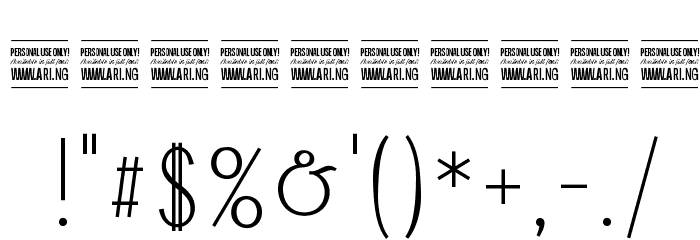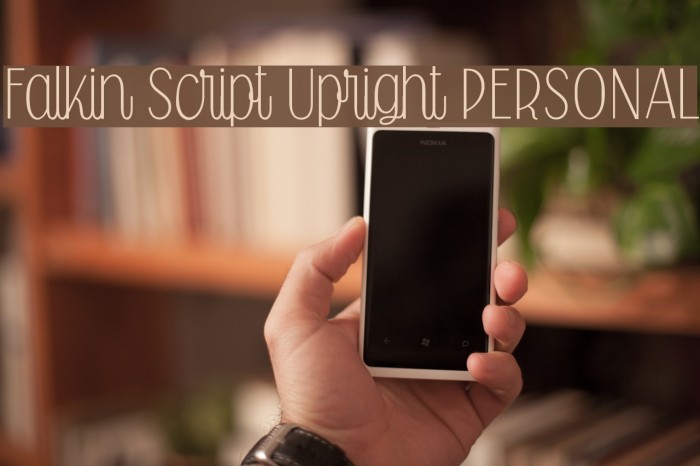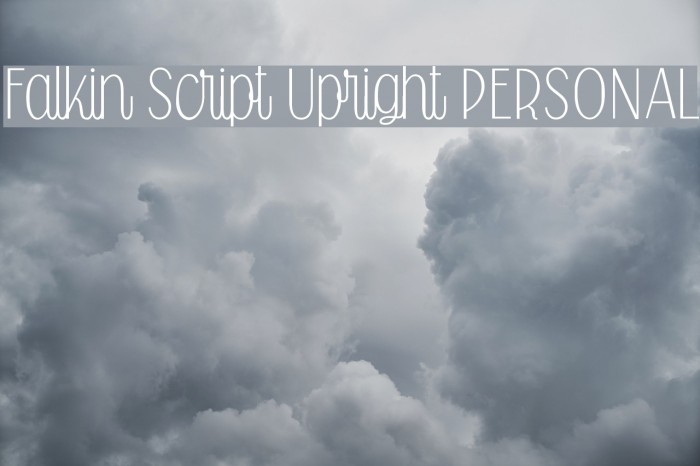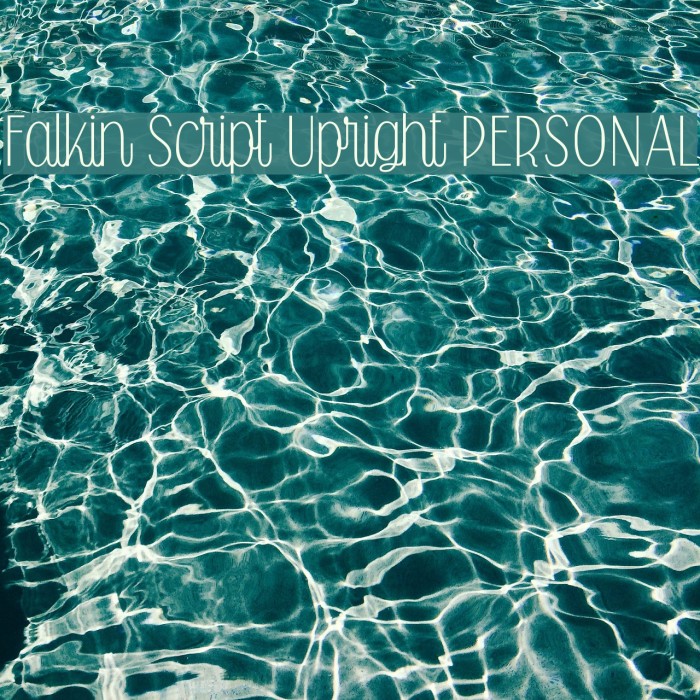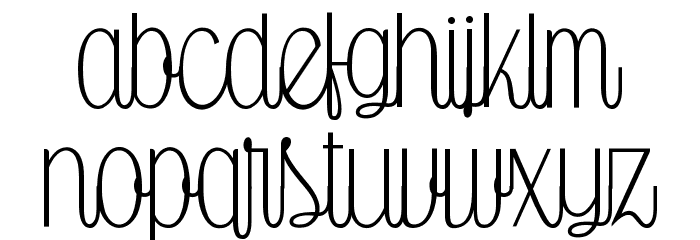
Falkin Script Upright PERSONAL Font
Falkin Script Upright PERSONAL Description
This font features a unique blend of script and upright characteristics, offering a modern and elegant look. The uppercase letters are tall and slender, with a clean and straightforward design, while the lowercase letters exhibit a more cursive style with smooth, flowing lines. The combination of these elements creates a versatile typeface that maintains readability while adding a touch of sophistication. The numerals and special characters are consistent with the overall style, ensuring a cohesive appearance across all text. This font is ideal for projects that require a balance between formality and creativity.
| Use Case | Logos, Invitations, Branding |
| Proposed Projects | Ideal for wedding invitations, branding, and elegant product packaging. |